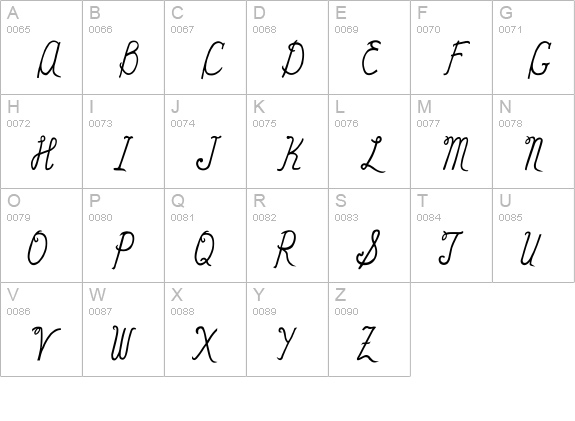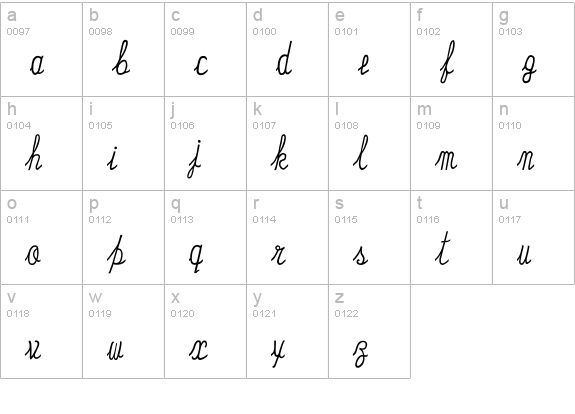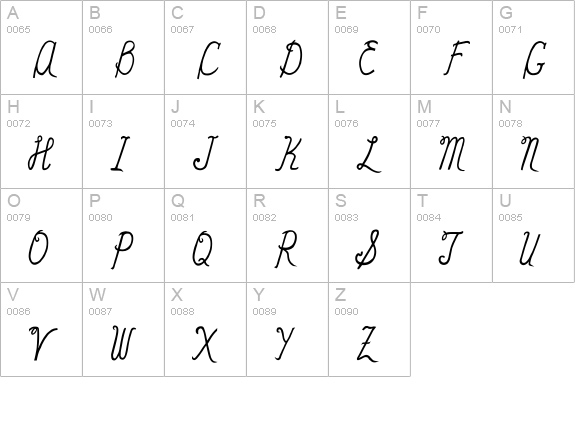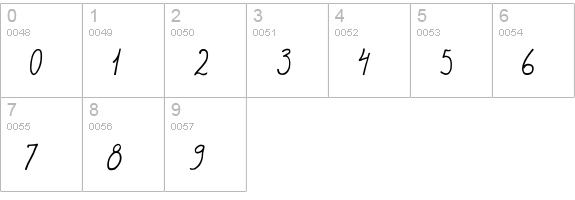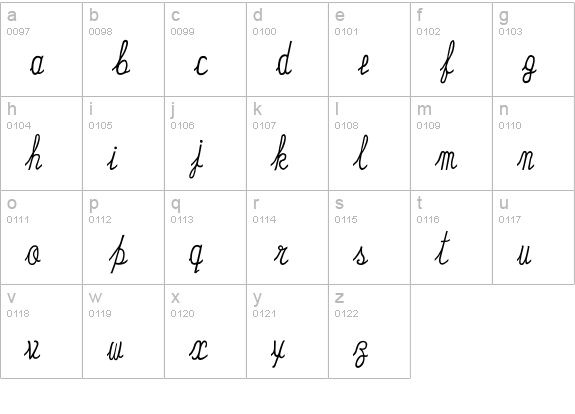
TiaOlga1 Font Details
TiaOlga1 font is a beautifully crafted typeface that effortlessly combines elegance and modernity. With its clean lines and graceful curves, this font is perfect for a variety of design projects, from wedding invitations to branding materials. What sets TiaOlga1 font apart is not only its stunning aesthetics but also its versatility. It can be easily adapted to suit different styles and moods, making it an ideal choice for both formal and casual designs. Whether you want to create a sophisticated logo or add a touch of refinement to your website, this font will effortlessly elevate your design. One of the best parts about TiaOlga1 font is that it is completely free. Yes, you read that right! This font is freely available to download at FontsMarket.com. So, you can enjoy this premium quality font without spending a dime. It doesn't get better than that! So, why wait? Download TiaOlga1 font today and let your creativity soar. Whether you are a professional designer or an amateur enthusiast, this font will undoubtedly become an essential tool in your design arsenal. With its timeless appeal and generous availability, TiaOlga1 font is a must-have for any design project.